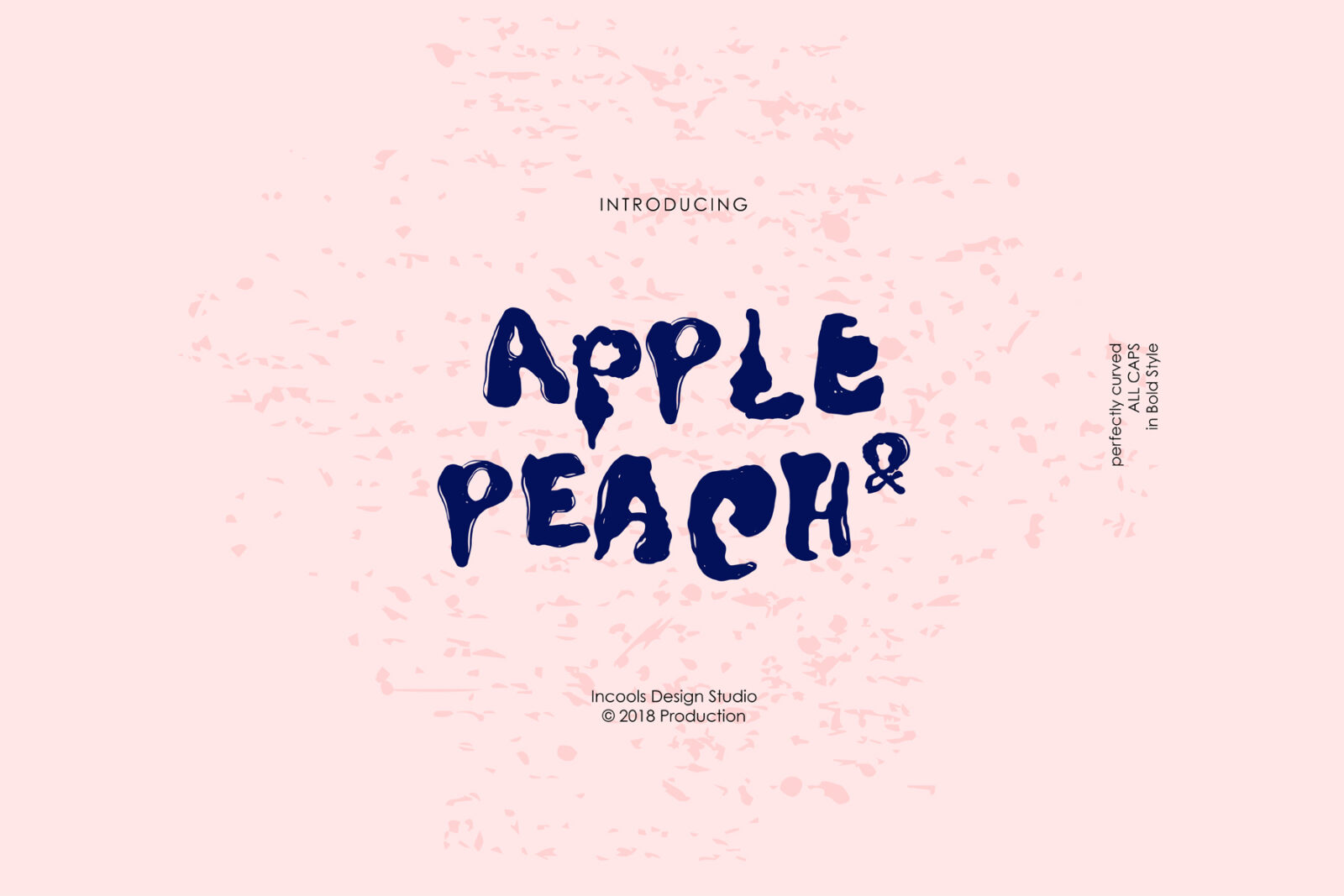
The Apple & Peach Font: A Bold, Playful Favorite
I still remember the design project that led me to discover the Apple & Peach Font. I was working on a whimsical branding project for a local farmer’s market, and I needed a font that would capture the playful, carefree spirit of fresh produce and community gatherings. After scouring font libraries and searching online, I stumbled upon Apple & Peach – a unique display font that instantly caught my eye with its bold, playful style.
Here’s what I love about Apple & Peach:
- ✨ Unique character: Apple & Peach stands out from more traditional fonts with its distinctive, hand-crafted feel.
- ✅ Bold and playful: This font makes a statement, adding a fun touch to any design project.
- 💡 Versatile: Despite its bold style, Apple & Peach works surprisingly well for both digital and print projects.
However, there are a few quirks to consider:
- 🤔 Legibility at small sizes: Apple & Peach can become a bit tricky to read when used at smaller font sizes.
- ⚠️ Limited use cases: Due to its bold, attention-grabbing style, Apple & Peach might not be the best fit for body text or more formal designs.
The Designer Inspiration Behind Apple & Peach
Apple & Peach was designed with the intention of creating a bold, attention-grabbing font that’s perfect for making a statement. The designer aimed to craft a font that’s both playful and sophisticated, suitable for a wide range of creative projects.
| Font Name | Apple & Peach Font |
| Author | Incools Design Studio |
| What type of projects is Apple & Peach best suited for? | Apple & Peach is ideal for bold, attention-grabbing designs like posters, flyers, and social media graphics. |
| Is Apple & Peach suitable for body text? | Due to its bold style, Apple & Peach is better suited for headlines and titles rather than body text. |